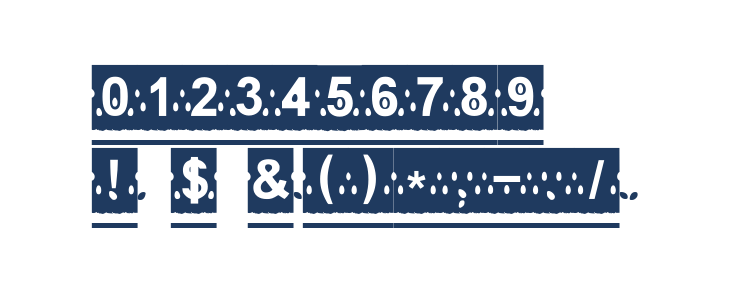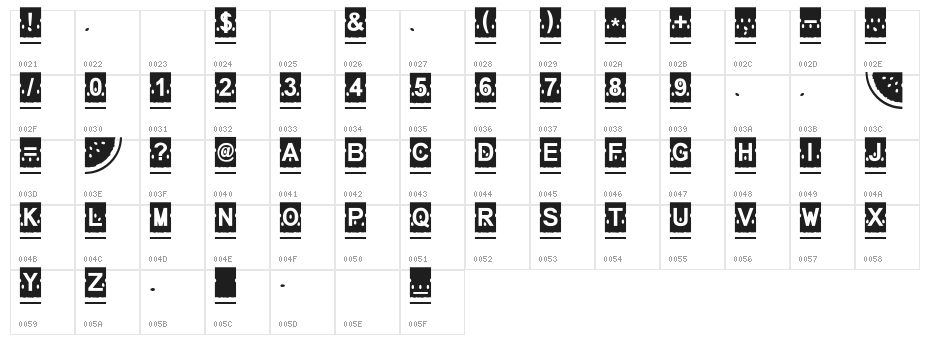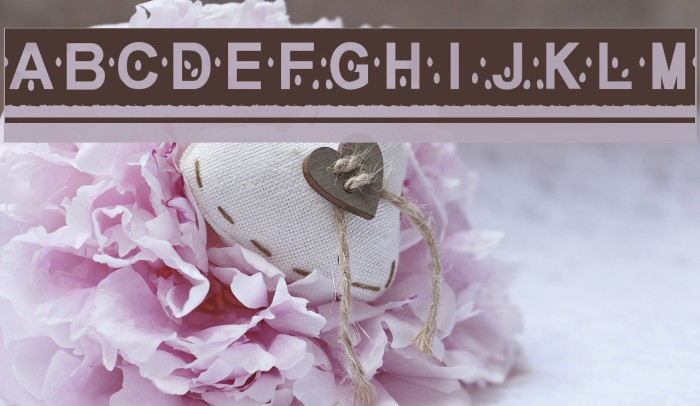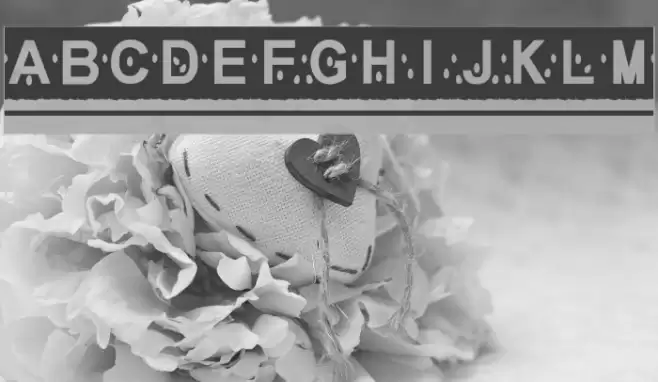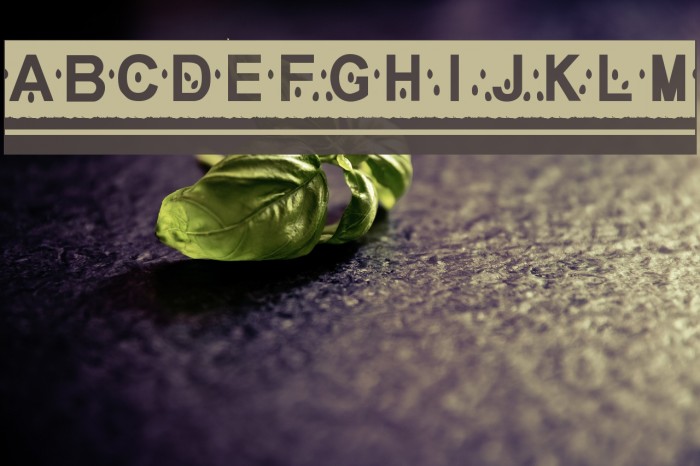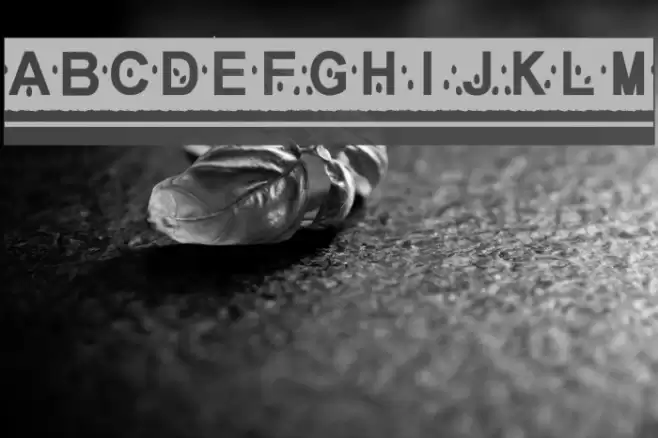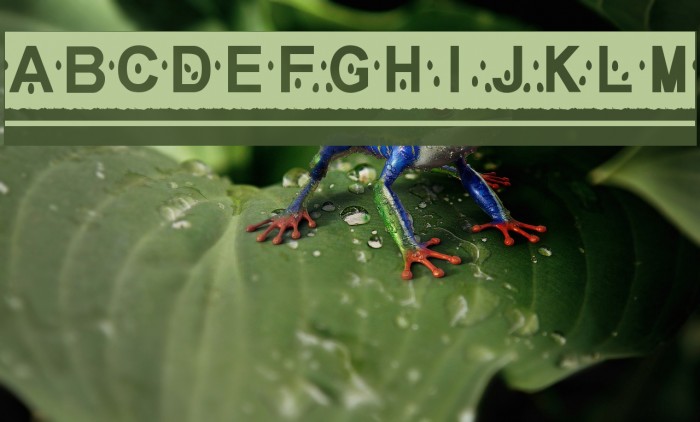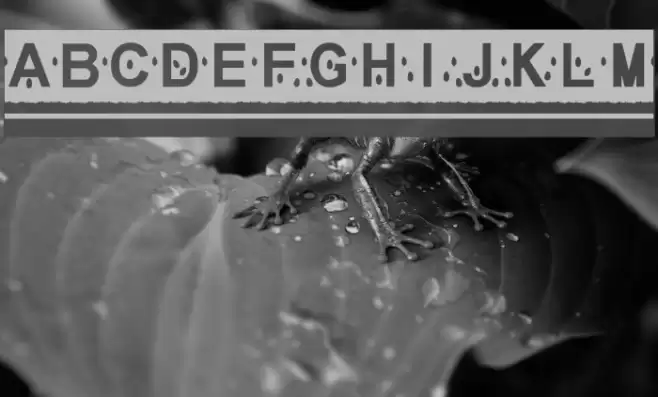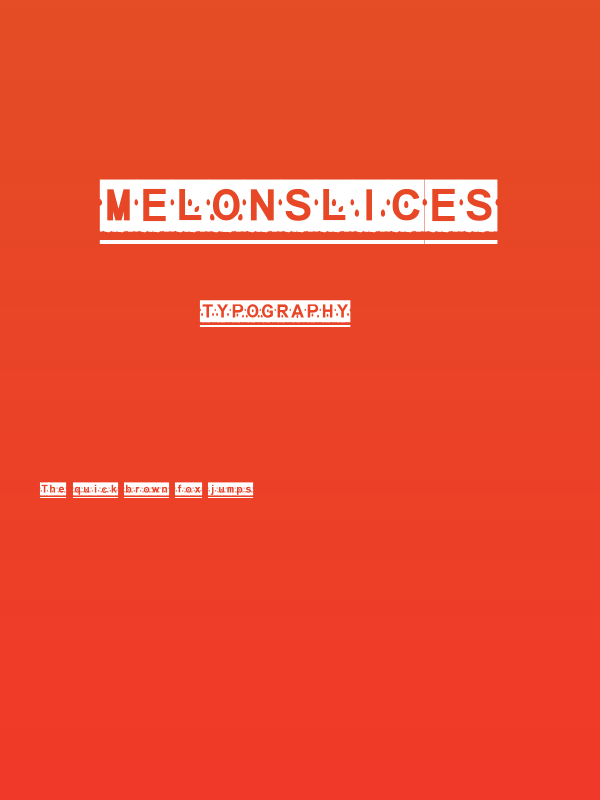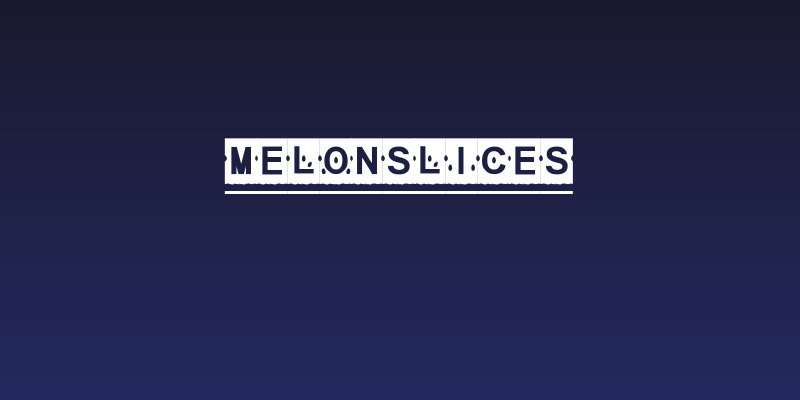
MelonSlices Font
MelonSlices Description
This playful and bold font features a unique design with each character enclosed in a rectangular box with rounded corners. The letters are uppercase and lowercase, with numerals and special characters included. The font has a distinct, whimsical style with a dotted pattern surrounding each character, giving it a playful and decorative appearance. The characters are evenly spaced within their boxes, creating a uniform look. This font is ideal for projects that require a fun and engaging visual element, such as children's books, playful branding, or creative posters.
| Overall Style | Playful, Decorative |
| Use Case | Headlines, Logos, Decorative text |
| Proposed Projects | Ideal for children's books, playful branding, creative posters, and decorative designs. |